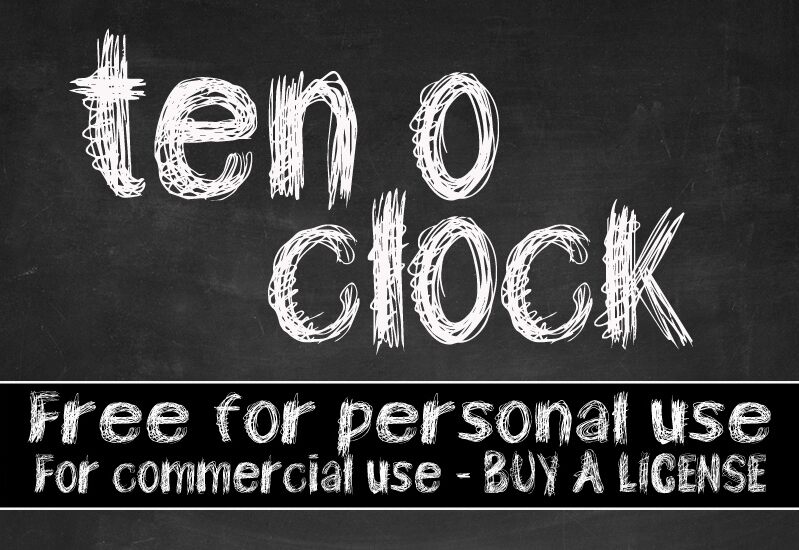
Ten O Clock by Cloutier Fontes is a free trash script with the restless look of letters scratched over again and again. Repeated strokes build dark patches beside open loops and stray lines. The uneven heights and shifting angles make every form seem hurried and raw.
Band merchandise is its clearest medium. The scrawled texture also suits punk posters, underground magazine covers, and horror game graphics, especially when the lettering needs to suggest frantic notes or damaged graffiti.
TEN O CLOCK Regular is a font by CloutierFontes, designed by Steve Cloutier in 2012.